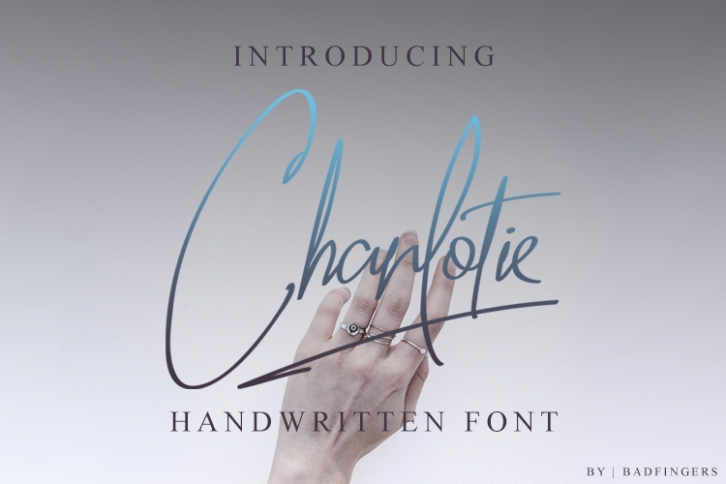
Charlotie Font Download
Charlotie is a trendy and unique font with an authentic style. It was designed by badfingers and it's a great choice for creative people who need such a font. It was released on March 19, 2019 and the file size is 7.69 MB. Charlotie will add an organic vibe to any design idea!